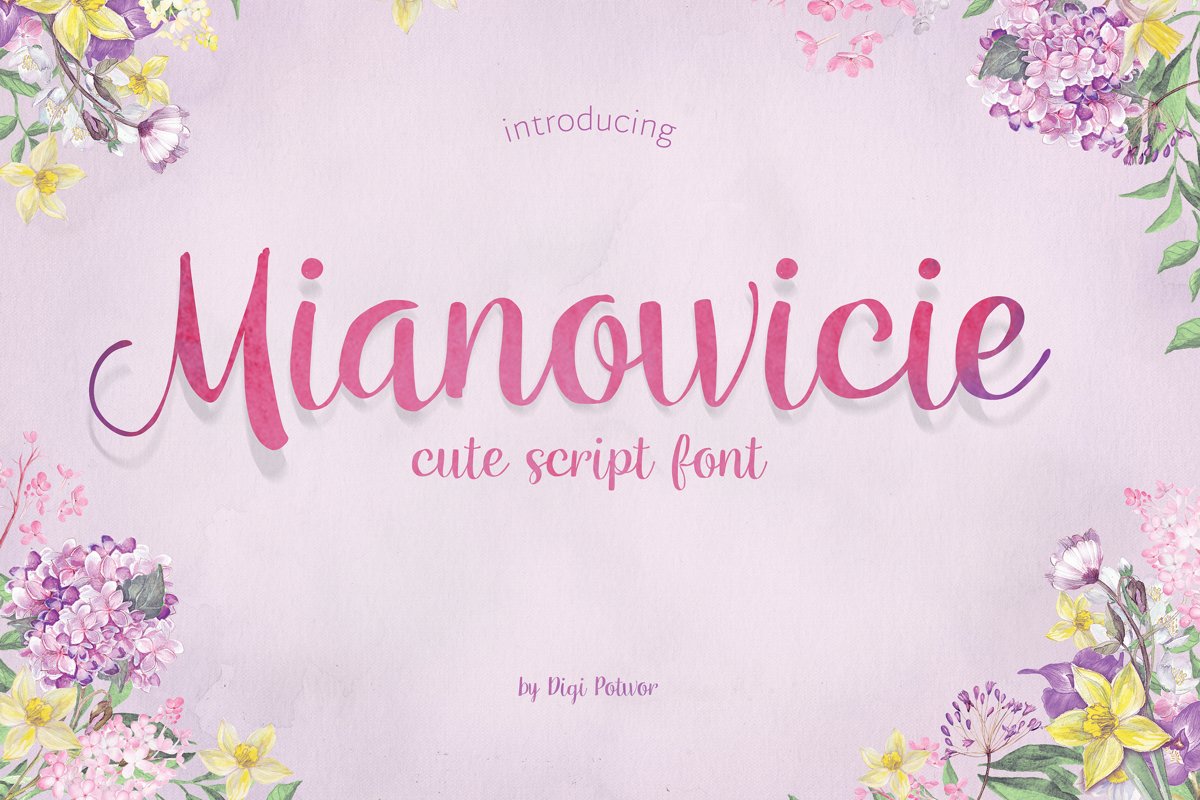
Mianowicie font
mianowicie
Mianowicie is a simple and cute handwritten font. Elegant and distinct, this font is the perfect choice for each of your creative ideas. Fall in love with its unique feel!
The font mianowicie contains 150 glyphs and 455 binary stored kerning pairs.